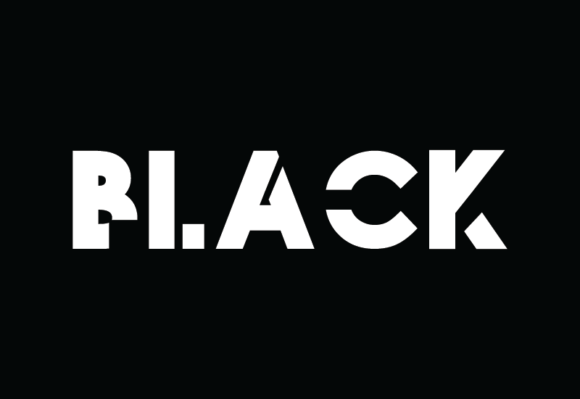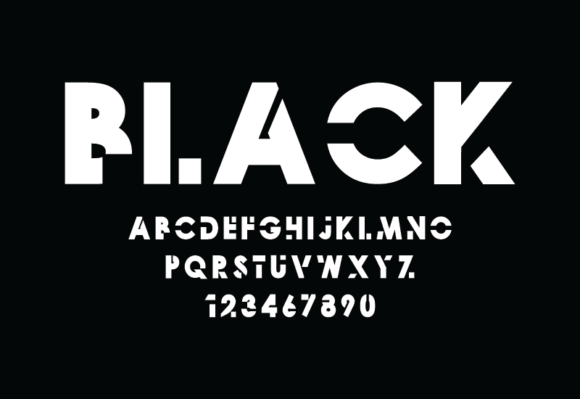
Unleash Your Creativity with the Bold Black Font
Have you ever found yourself staring at a blank page, struggling to bring your creative vision to life? You’re not alone. We’ve all been there. But what if I told you there’s a secret ingredient that can elevate your designs and make them truly unforgettable? Enter the Black Font, a bold and fat modern sans-serif font that’s guaranteed to make your creative projects stand out from the crowd.
Designed to add a touch of sophistication and elegance to your designs, the Black Font is the perfect addition to any project. With its balanced proportions and creative structure, this font is a valuable asset for designers looking to create a minimalist aesthetic in logos, web design, and branding. Whether you’re a seasoned pro or just starting out, the Black Font is a game-changer that’s sure to take your designs to the next level.
Black Font Key Features
- Font Family: Black Font is a sans-serif font family designed to provide a clean and modern look. It is available in various font weights, from Thin to Black.
- Unique Characteristics: Black Font features a unique geometric shape and a bold, modern aesthetic that makes it stand out from other sans-serif fonts. It is particularly well-suited for use in digital design applications, such as websites, mobile apps, and video games.
- Language Support: Black Font supports a wide range of languages, including Latin, Cyrillic, and Greek alphabets, making it a versatile choice for international design projects.
Black Font Review
Overall, I’m impressed with the clean and modern aesthetic that Black Font brings to the table. ✨ Its sleek lines and precise edges make it a great choice for any design project that requires a touch of sophistication.
One of the standout features of Black Font is its versatility. It’s available in a range of weights, from light to bold, which makes it easy to adapt to different design contexts. ✨ The font also has excellent legibility, making it a great choice for body text.
- Modern aesthetic
- High level of versatility
- Excellent legibility
- Available in multiple weights
- May not be suitable for projects that require a lot of texture or ornamentation
- Can appear a bit cold or sterile if used excessively
Overall, I think Black Font is a solid choice for designers looking for a clean and modern font. While it may not be the most exciting choice, it’s reliable and versatile, making it a great addition to any design arsenal.